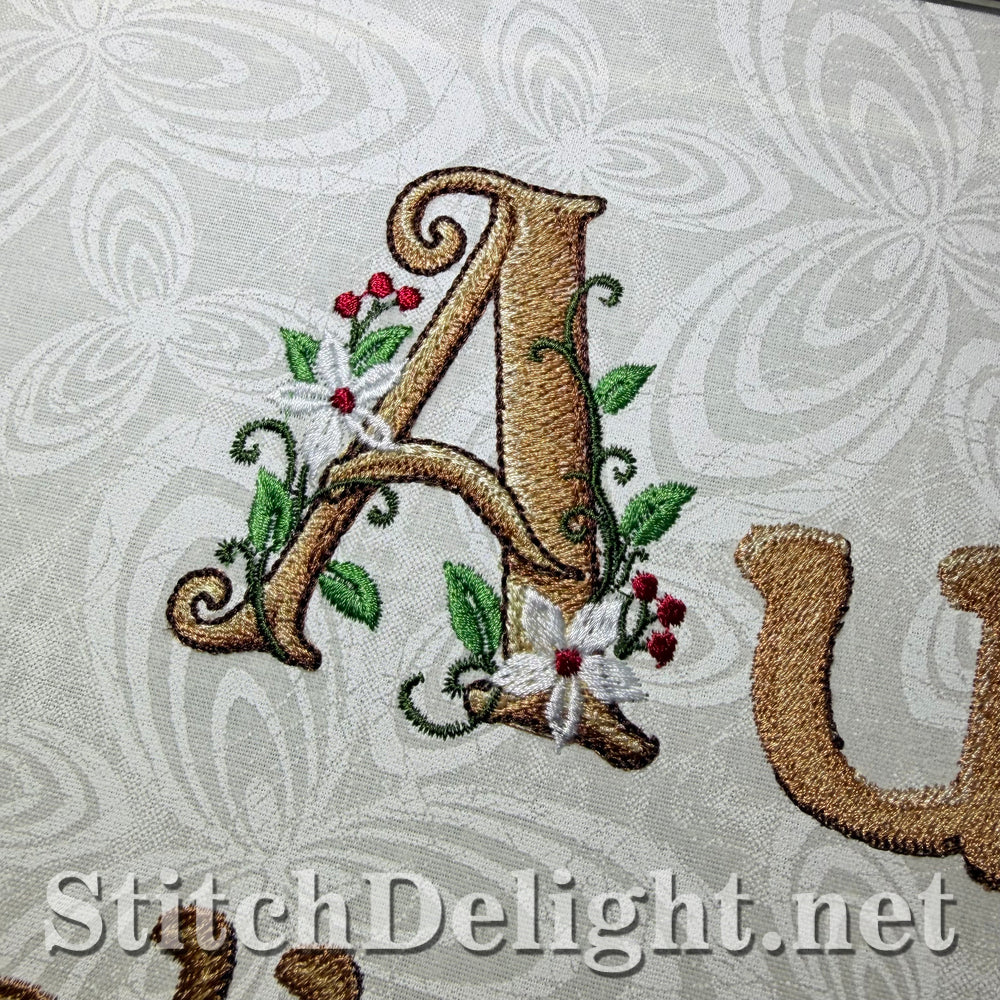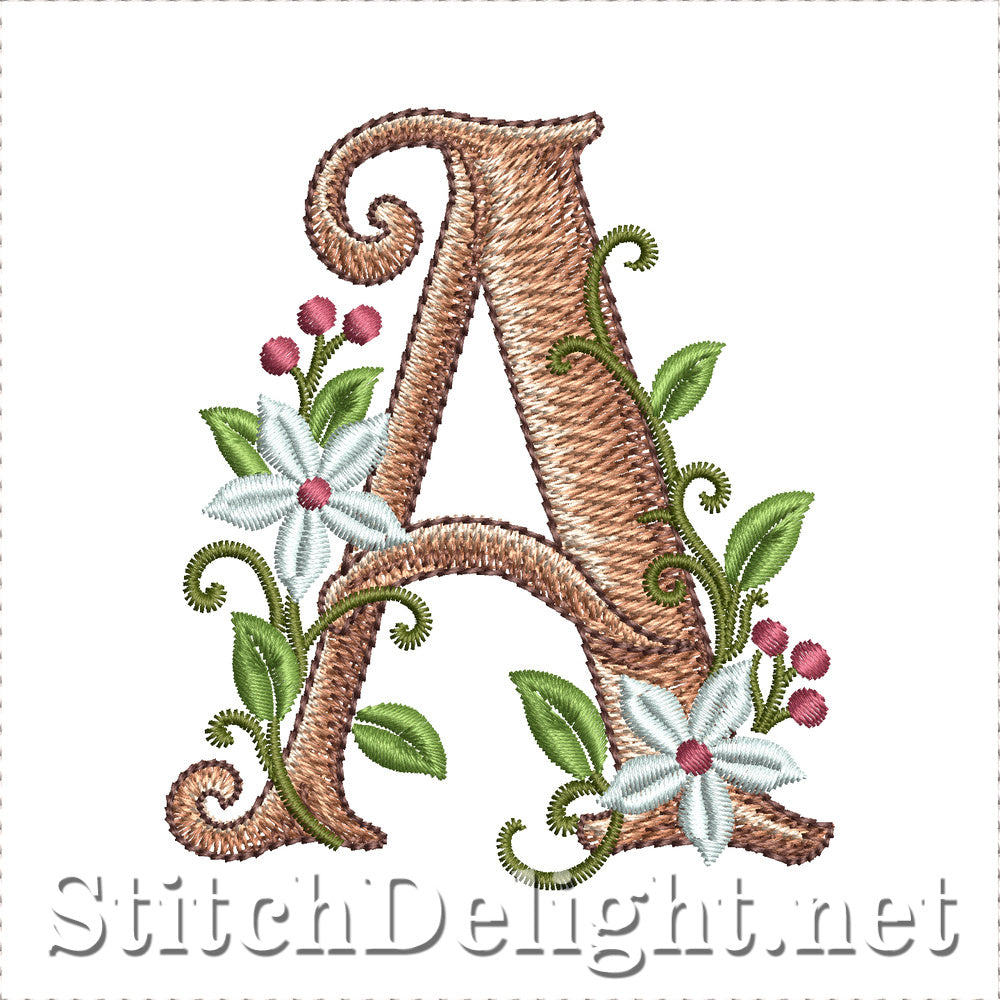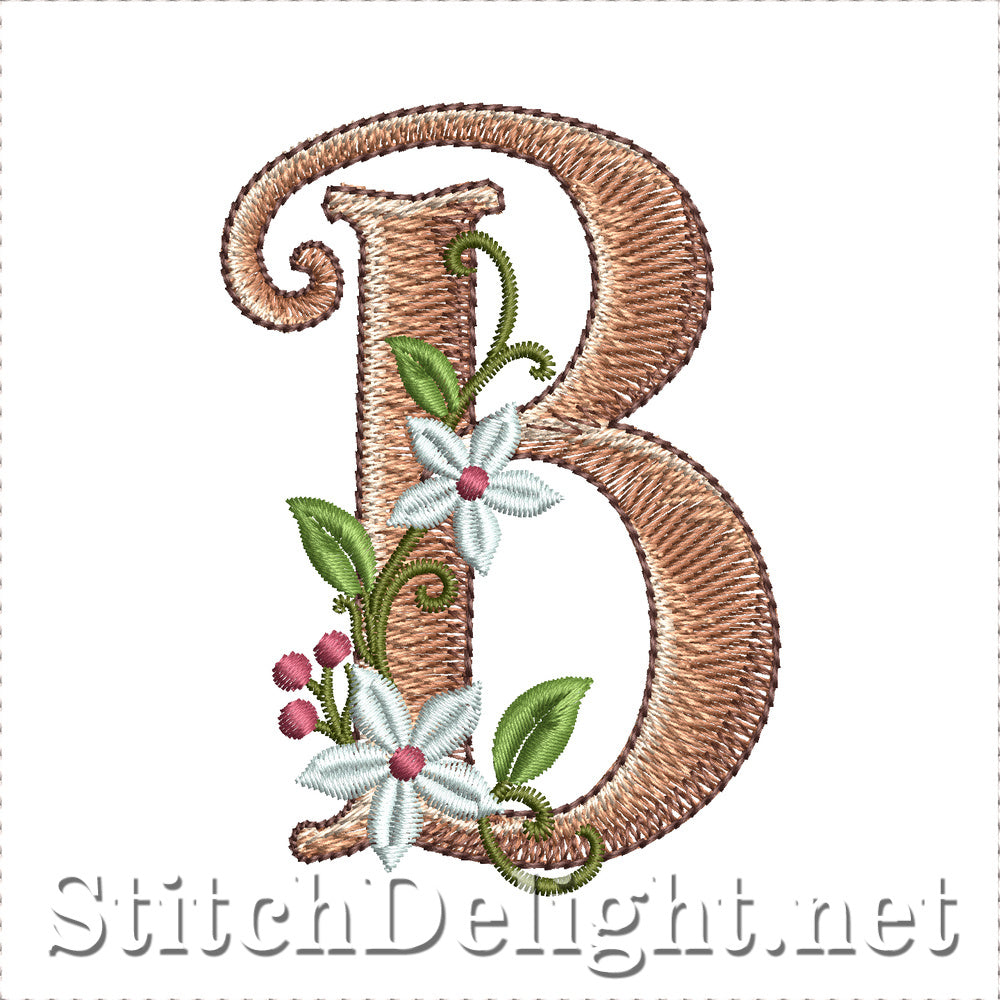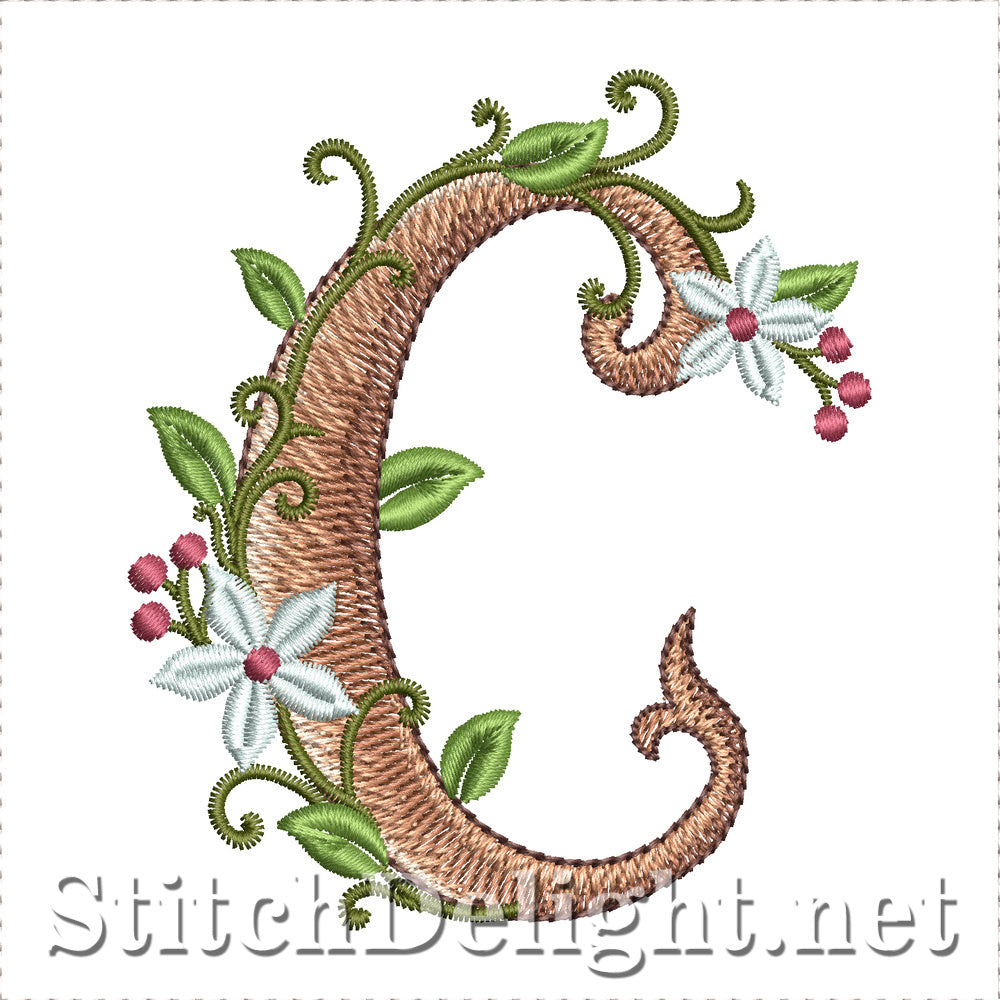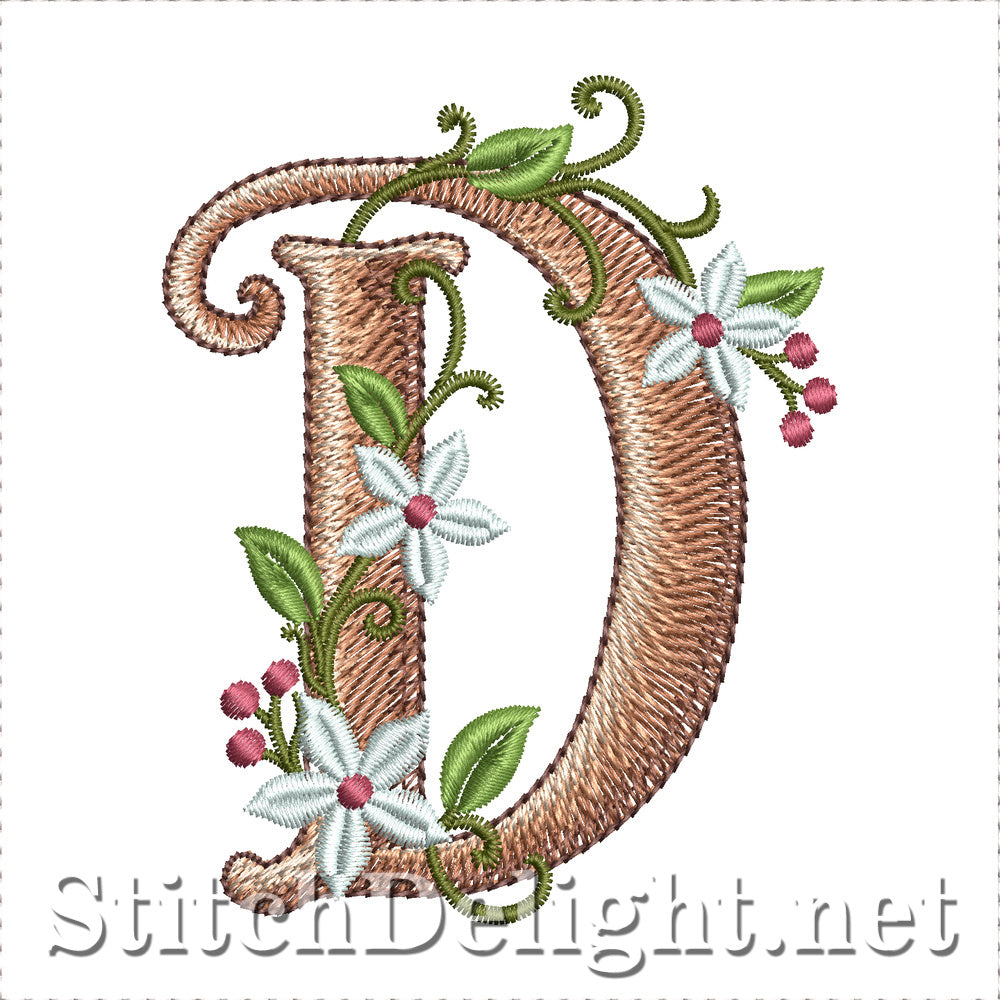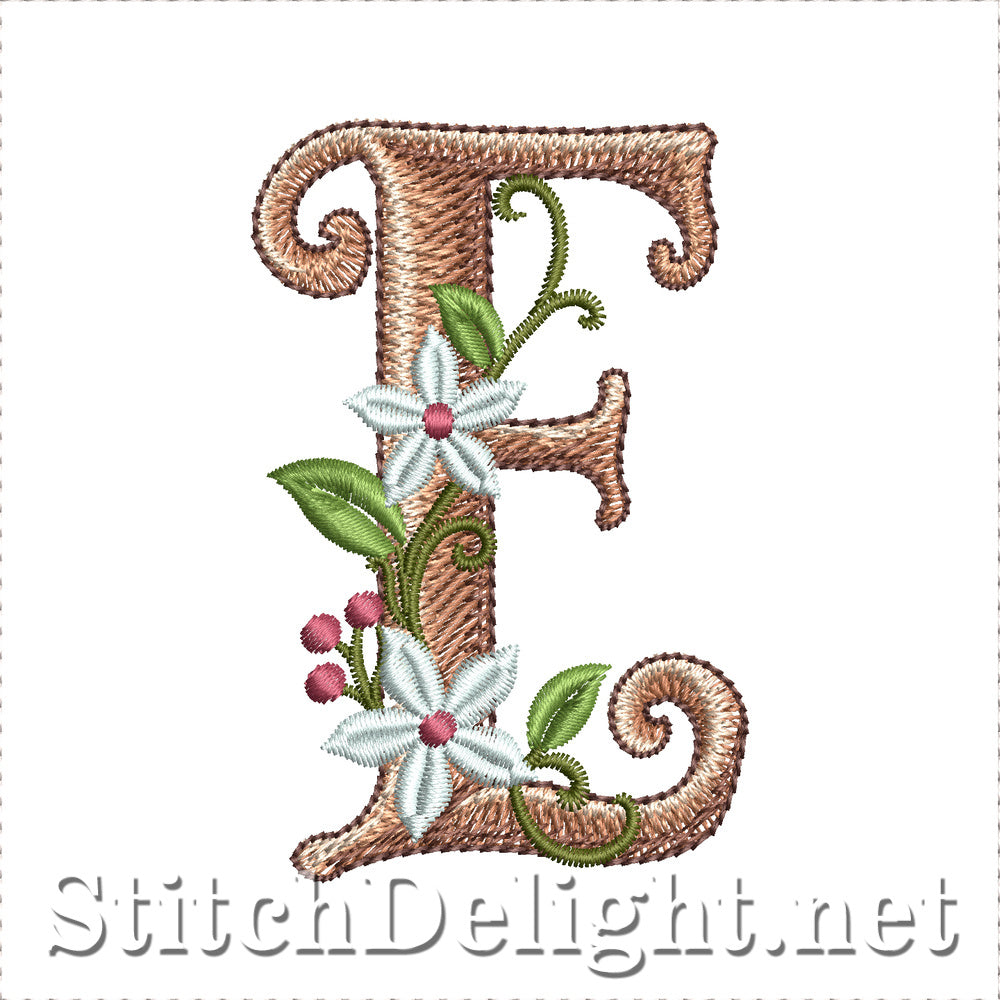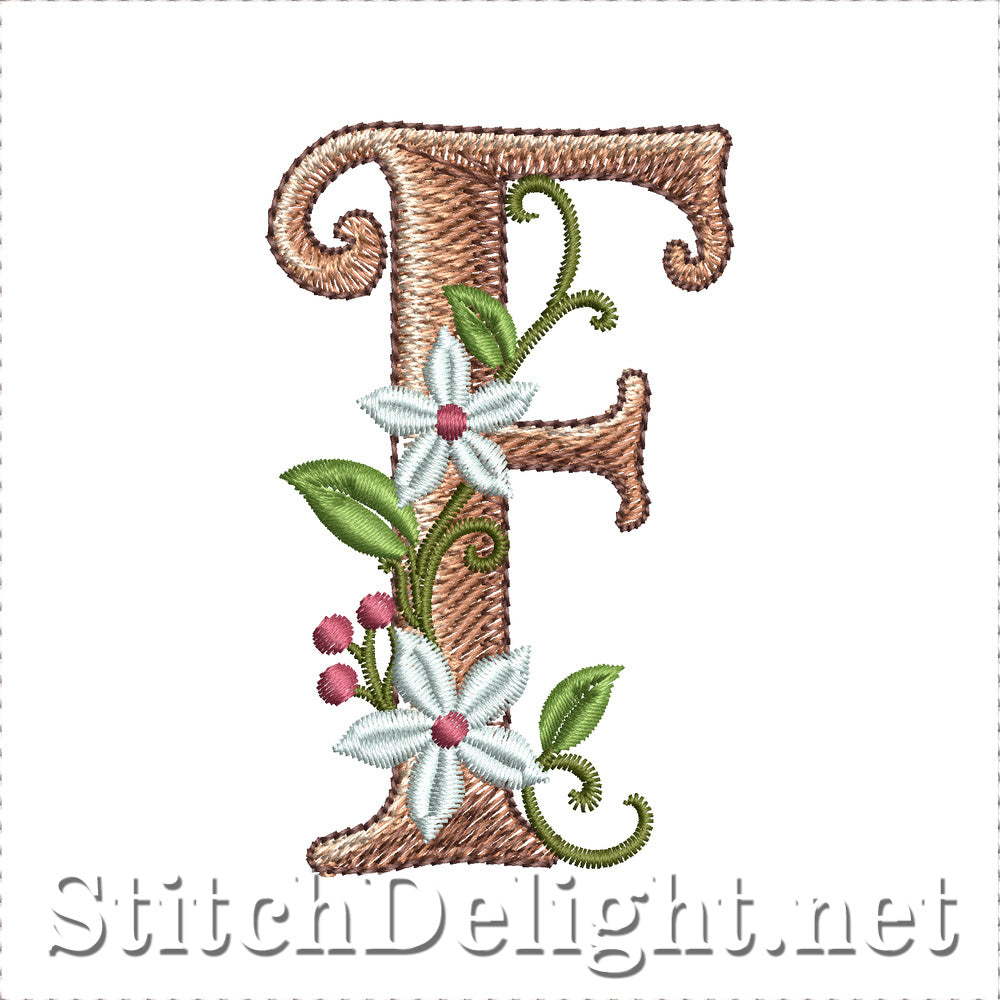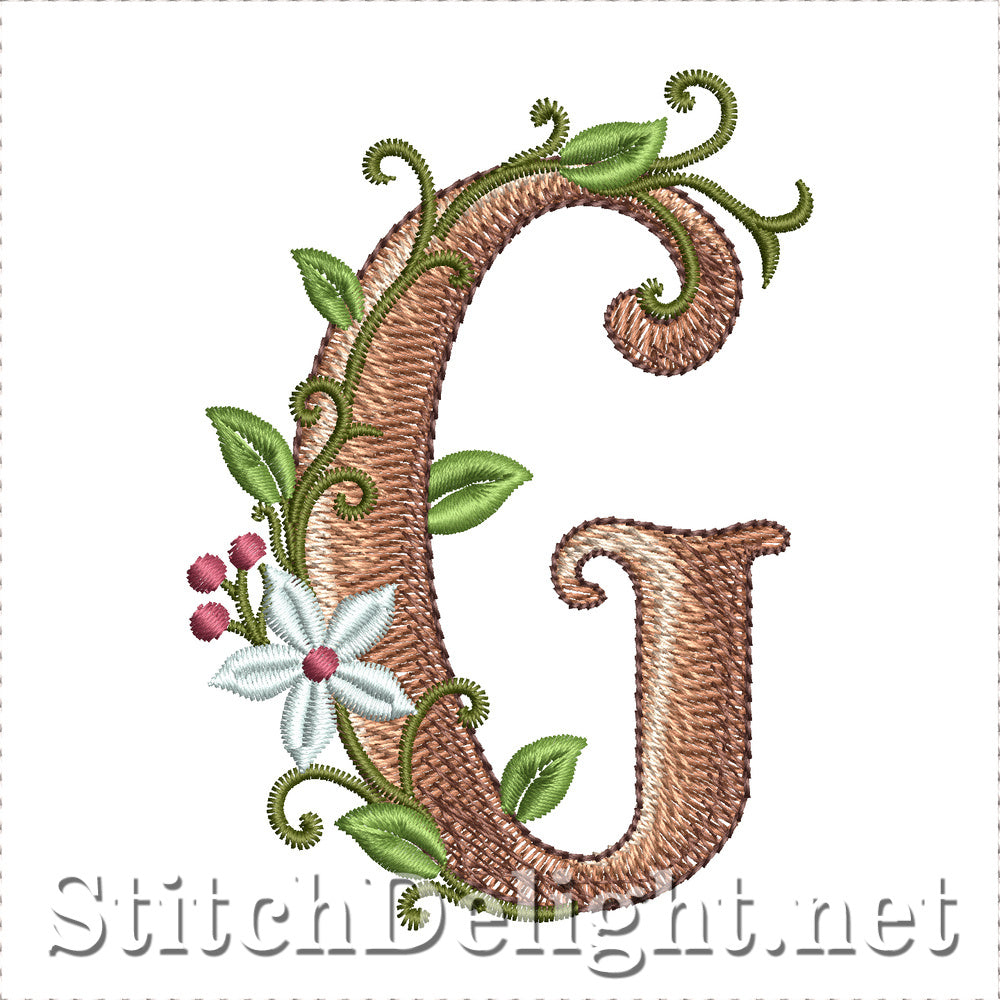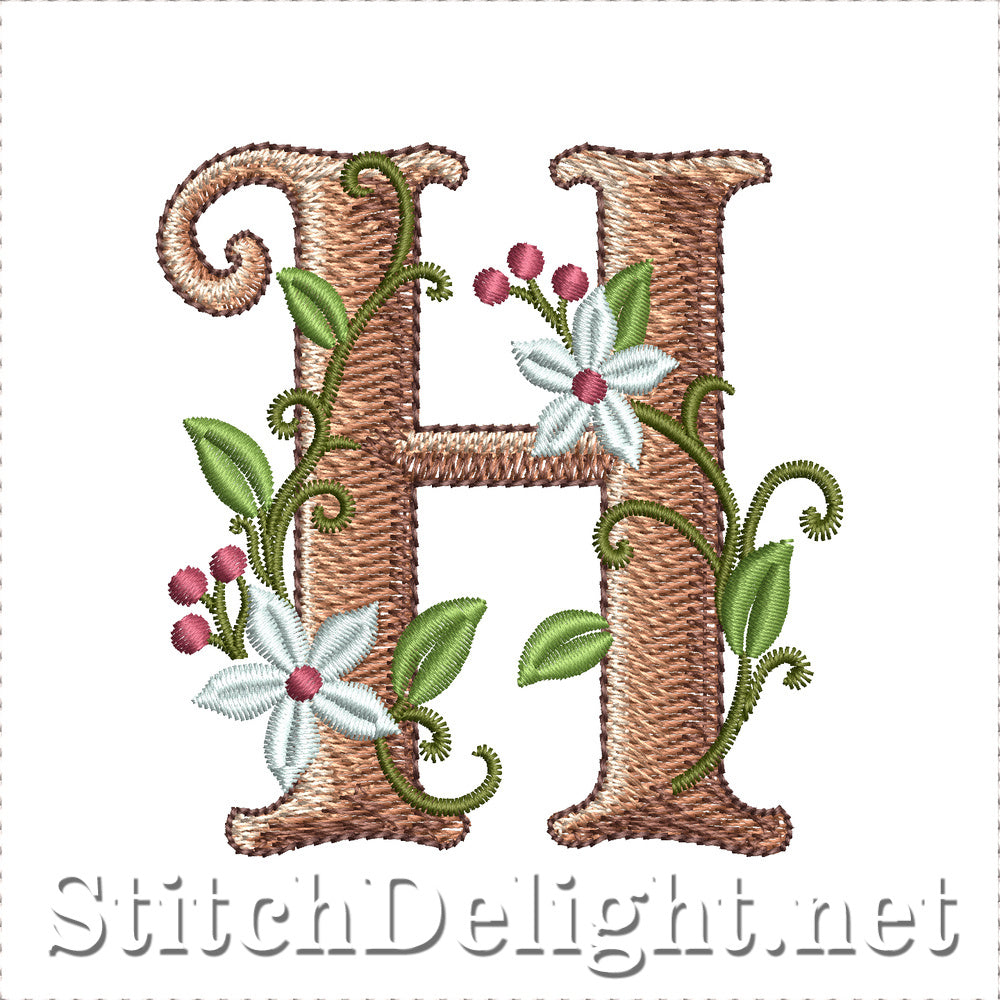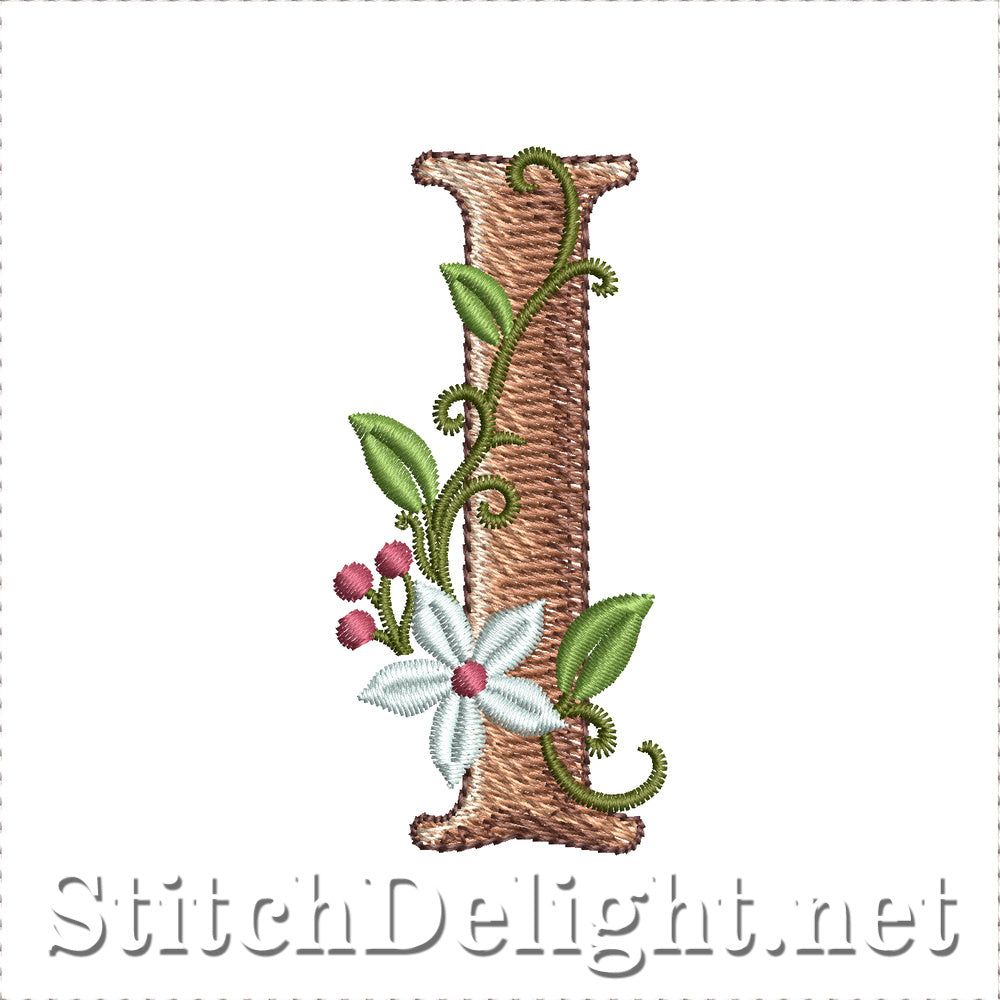
Bring timeless elegance to your embroidery with the Coffee House Font, a beautifully coordinated alphabet inspired by the delicate beauty of the coffee plant.
This collection features an ornate decorative alphabet where each capital letter is embellished with graceful coffee vines, white coffee blossoms, rich green foliage, and clusters of ripe coffee berries. Every letter is individually composed to create a balanced monogram while maintaining a cohesive style across the entire alphabet.
To complement the ornate initials, we also created a matching font, designed to pair perfectly with the decorative letters find them here . Create elegant names, monograms, seasonal projects, labels, and personalized gifts by combining the ornate capitals with the matching lettering.
The ornate monogram letters measure approximately 3.15 inches (80 mm) in height and are designed to stitch in a 4 × 4 inch hoop, making them ideal for a wide variety of embroidery projects.